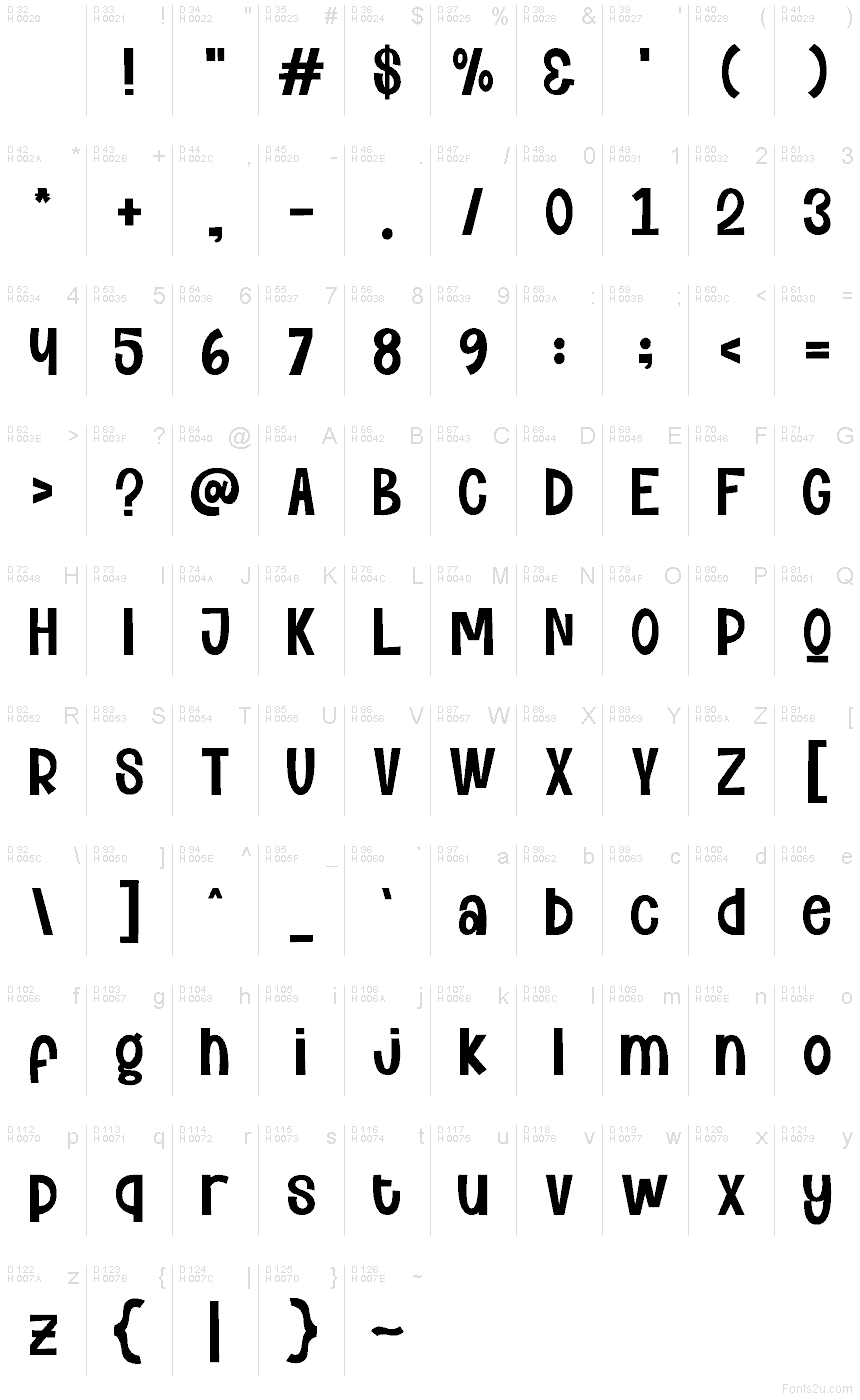
Mogesty
Mogesty font by Jadatype is a free comic display typeface that brings a chunky, hand-drawn energy to your layouts. Its tall, slightly wobbly letters feel like they’ve been painted with a thick marker—bold, inky, and full of motion—without slipping into messy chaos. The rounded edges and playful curves give it a friendly, character-driven voice that grabs attention in a single glance.
Using Mogesty, you can punch up kids’ book covers, comic panels, playful posters, game titles, YouTube thumbnails, and event flyers with a consistent, animated tone. This free font shines at larger sizes where its quirky silhouettes can breathe. Pair it with a clean, neutral sans-serif for body text to keep your designs readable while Mogesty does the expressive heavy lifting in headings and logos.